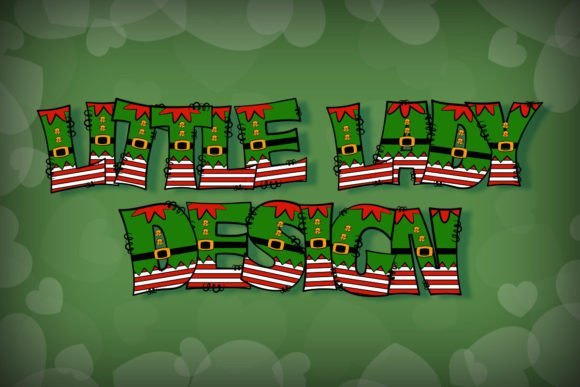
Introducing ELF Christmas Font: Elevate Your Holiday Designs with a Touch of Whimsy
The holiday season is upon us, and with it comes the need for designers and crafters to create festive and engaging content. If you’re looking for a font that captures the essence of Christmas, look no further than the ELF Christmas Font. This stunning display font is perfect for adding a touch of whimsy and fun to your holiday designs.
What Makes ELF Christmas Font So Special?
ELF Christmas Font is a gorgeous display color font that is both trendy and stylish. Its unique design makes it an excellent resource for any designer or crafter looking to elevate their creations. Whether you’re working on a Christmas card, holiday invitation, or festive craft project, this font is sure to make your design stand out.
One of the best things about ELF Christmas Font is its versatility. Regardless of the theme, this font can help you create any design you can imagine. From rustic and vintage-inspired to modern and sleek, ELF Christmas Font is the perfect addition to your font library.
Key Features of ELF Christmas Font
- Gorgeous Display Font: ELF Christmas Font is a stunning display font that is perfect for headlines, titles, and other design elements.
- Trendy and Stylish: This font is both trendy and stylish, making it perfect for designers and crafters who want to create modern and eye-catching designs.
- Color Font: ELF Christmas Font is a color font, which means you can use it to add a pop of color to your designs.
- Versatile: This font is versatile and can be used for a wide range of design projects, from Christmas cards and invitations to festive craft projects.
How to Use ELF Christmas Font in Your Designs
Using ELF Christmas Font in your designs is easy. Here are a few tips to get you started:
- Pair it with Other Fonts: Pair ELF Christmas Font with other fonts to create a unique and eye-catching design.
- Use it for Headlines: Use ELF Christmas Font for headlines and titles to add a touch of whimsy and fun to your design.
- Add a Pop of Color: Use ELF Christmas Font to add a pop of color to your design and make it stand out.
- Experiment with Different Sizes: Experiment with different sizes and styles to find the perfect look for your design.
Why Designers and Crafters Love ELF Christmas Font
Designers and crafters love ELF Christmas Font for many reasons. Here are a few:
- Easy to Use: ELF Christmas Font is easy to use, even for those who are new to design.
- High-Quality Design: This font is designed with high-quality graphics, making it perfect for printing and digital use.
- Festive and Fun: ELF Christmas Font is festive and fun, making it perfect for holiday designs.
- Versatile: This font is versatile and can be used for a wide range of design projects.
If you’re looking for a font that will elevate your holiday designs, look no further than ELF Christmas Font. This gorgeous display color font is perfect for adding a touch of whimsy and fun to your designs. With its trendy and stylish design, versatility, and ease of use, ELF Christmas Font is a must-have for any designer or crafter.